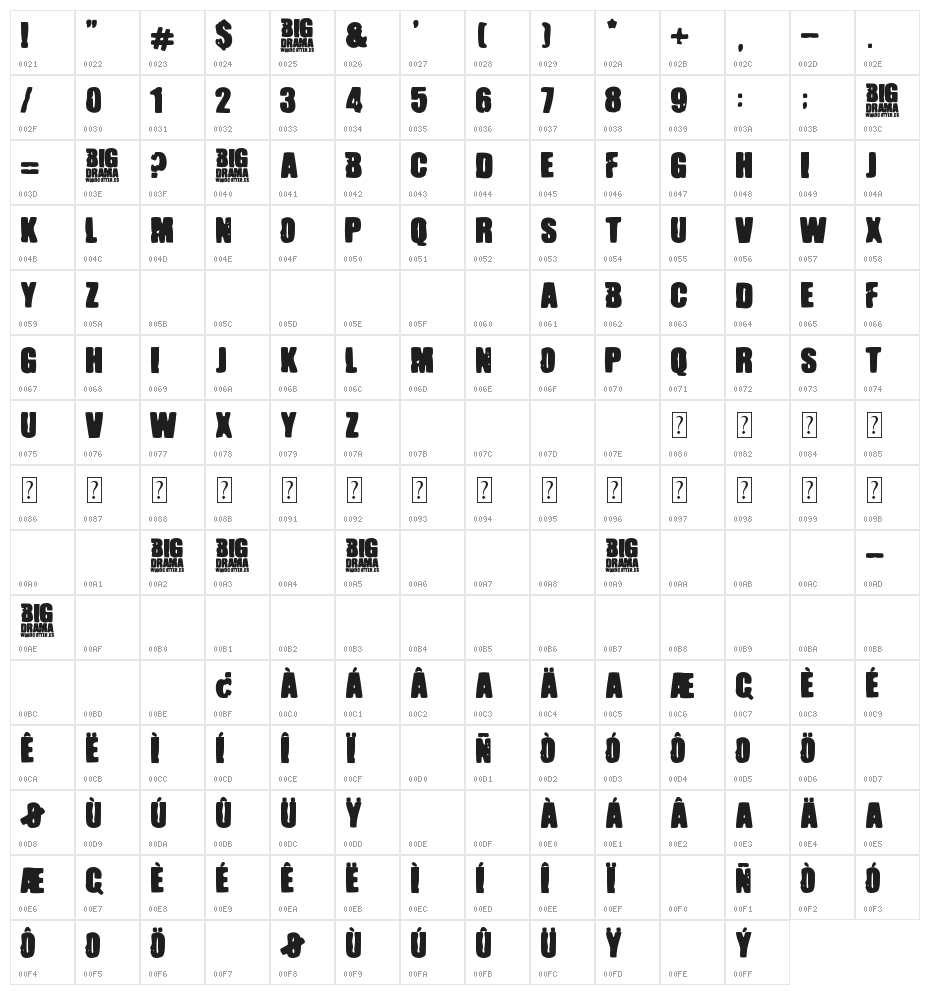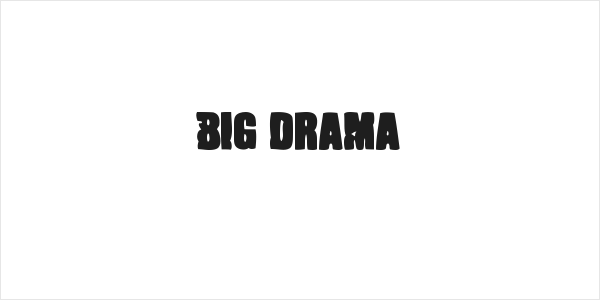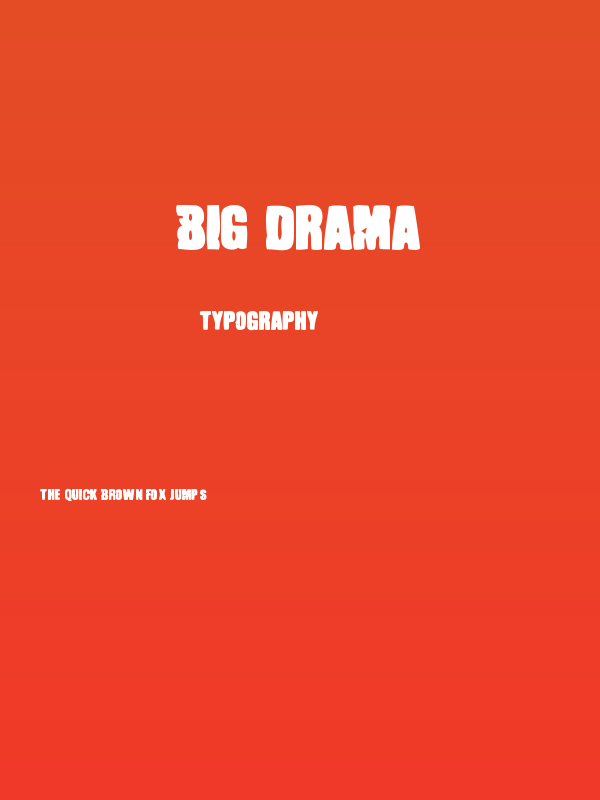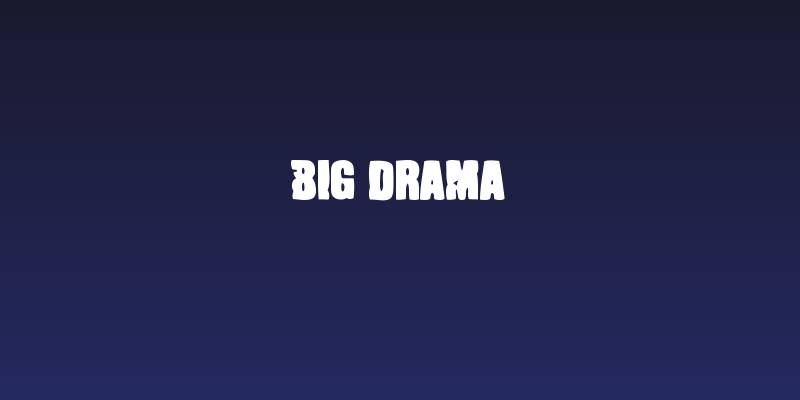
Big Drama Font
Big Drama Description
This font is a bold and dramatic display typeface characterized by its thick, heavy strokes and unique, playful design. The letters are robust and have a strong presence, making them ideal for attention-grabbing headlines and titles. The font features a slightly irregular shape, giving it a whimsical and artistic feel. It includes both uppercase and lowercase letters, numbers, and a variety of special characters. The overall appearance is somewhat cartoonish, with a touch of retro flair, making it suitable for creative and unconventional projects.
| Proposed Projects | Ideal for posters, logos, comic book covers, children's book titles, and any project requiring a bold, eye-catching typeface. |